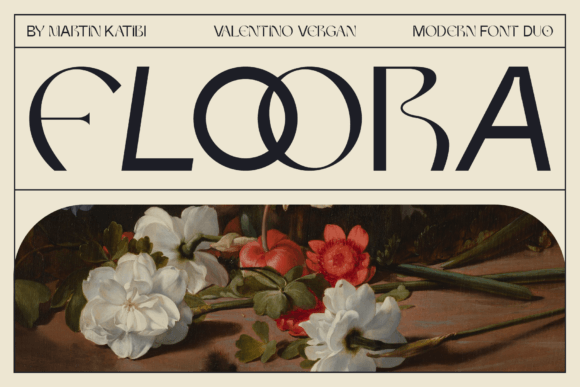
Floora Font Review: A Unique Typeface for Web Design
I was recently staring at a hero section for a boutique skincare client, trying to find that elusive balance between modern authority and organic warmth. The standard geometric sans serifs felt too clinical, while the popular scripts felt too informal for a premium price point. That is when I decided to test Floora in a live staging environment. As a web designer, I am often skeptical of highly stylized display fonts because they can break responsive layouts or hurt readability on mobile. However, testing this unique font duo revealed some surprising strengths for digital brand identity that go beyond typical decorative typography.
Floora is not just another novelty typeface; it is a deliberate design system. It combines a polished uppercase sans serif with a distinct Neue Nouveau style lowercase. This duality creates an immediate visual tension that feels both editorial and approachable. When I dropped it into the website header, the contrast between the structured caps and the fluid, art-nouveau-inspired lowercase letters instantly elevated the perceived value of the site. For digital product creators and UI designers looking to establish a strong visual hierarchy without relying on heavy imagery, this typeface offers a sophisticated solution that feels fresh yet rooted in design history.
Elevating Hero Sections and Digital Brand Identity
The primary strength of Floora in a web context lies in its ability to anchor a landing page. In my test case for the skincare brand, I used the all-caps version for the main navigation and primary call-to-action buttons, while utilizing the mixed-case Neue Nouveau style for the large hero headline. The result was a layout that guided the eye naturally. The polished sans serif capitals provided the necessary structure for user interface elements, ensuring that "Shop Now" and "About Us" remained legible and trustworthy. Meanwhile, the stylized lowercase headline introduced an emotional hook that standard fonts simply cannot achieve.
This specific combination makes Floora exceptionally useful for creative portfolios, coaching websites, and artisanal e-commerce stores. It bridges the gap between luxury and accessibility. When designing for brands that need to convey craftsmanship or personalized service, this font acts as a visual shorthand for quality. I found that it works best when given ample whitespace. Crowding this typeface diminishes its impact, but when allowed to breathe in a hero banner or a featured product section, it becomes the focal point of the digital experience. It transforms a generic webpage into a curated brand moment.
Responsive Performance and Mobile Readability
A beautiful font is useless if it fails on a smartphone screen. My biggest concern during the review process was how the intricate details of the Neue Nouveau lowercase would render on smaller viewports. Display fonts with high contrast or fine details often become muddy or pixelated on mobile devices. Fortunately, Floora held up remarkably well, provided I adjusted the sizing strategy. On desktop, the font shines at larger scales, but on mobile, I found it necessary to increase the base size slightly and adjust the line height to prevent the decorative lowercase characters from feeling cramped.
For UI designers implementing this typeface, I recommend the following practical adjustments for responsive layouts:
- Avoid tiny text: Keep Floora above 18px on mobile screens to preserve the integrity of the Nouveau curves.
- Mind the line height: The decorative lowercase glyphs have unique vertical metrics; a line-height of 1.4 to 1.6 prevents overlapping in multi-line headlines.
- Test on dark modes: The contrast between the polished sans and the ornate lowercase behaves differently on dark backgrounds; ensure sufficient color contrast ratios for accessibility.
- Limit character count: This is a display font, not a body font. Keep headlines concise to maintain scanning behavior.
While the font performs beautifully for titles and short phrases, it is crucial to recognize where it does not belong. I would strongly advise against using Floora for long-form blog content, dense FAQ sections, or complex data tables. The personality of the typeface is too strong for sustained reading, and the unique letterforms could cause cognitive fatigue for users trying to digest technical information. Reserve this gem for moments where you want to capture attention, not sustain deep reading.
Strategic Font Pairing for Editorial Web Layouts
Because Floora has such a distinct personality, pairing it requires a restrained hand. During the redesign project, I tested several combinations to see what supported the font without competing with it. The most successful pairing was a clean, neutral grotesque sans serif for body copy. The simplicity of a standard utility font allows Floora’s Nouveau nuances to stand out without creating visual noise. If your brand leans more towards traditional elegance, a high-contrast serif font can also work for subheadings, creating a classic editorial magazine aesthetic.
However, avoid pairing Floora with other script fonts or highly decorative display fonts. The Neue Nouveau lowercase already carries significant stylistic weight; adding another ornamental typeface creates clutter and confusion. Think of Floora as the lead vocalist in your typographic band. Everything else should be rhythm and bass. This approach ensures that your web design remains professional and accessible while still benefiting from the font's unique charm. For digital templates and theme designs, setting up these pairings in advance can save end-users significant time and prevent common design mistakes.
Ultimately, Floora is a powerful tool for web designers who want to move beyond safe, generic typography. It demands a bit more intention regarding spacing, pairing, and usage context than a standard system font, but the payoff is a digital presence that feels bespoke and memorable. By respecting its role as a display typeface and leveraging its unique dual-personality structure, you can create web experiences that resonate emotionally with users while maintaining the clarity and functionality required for modern digital products.